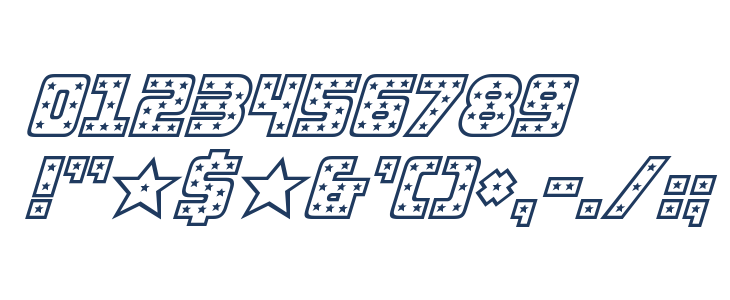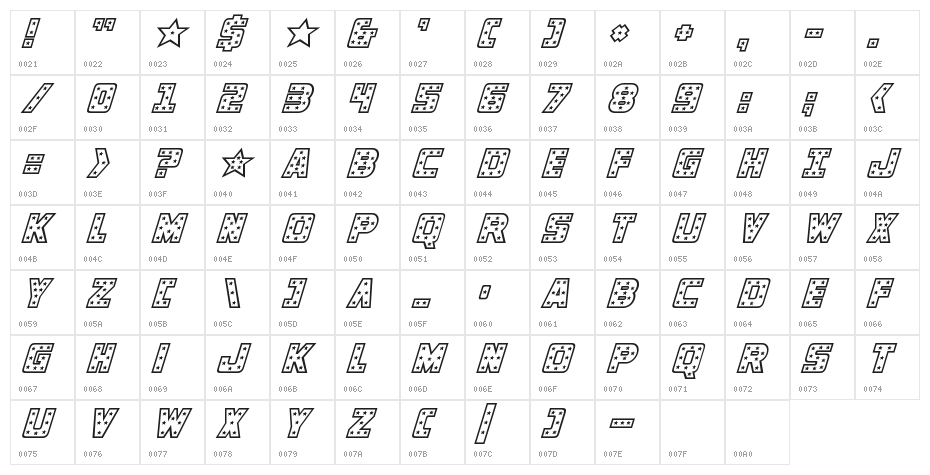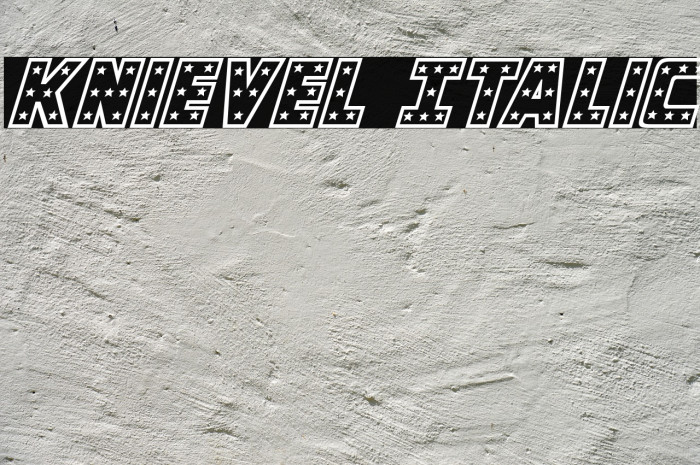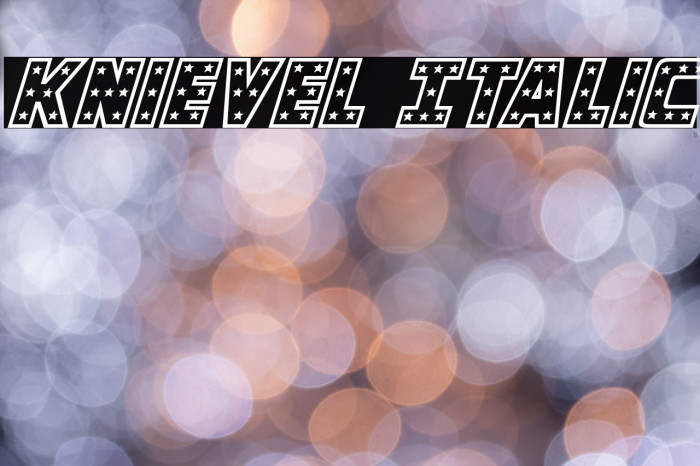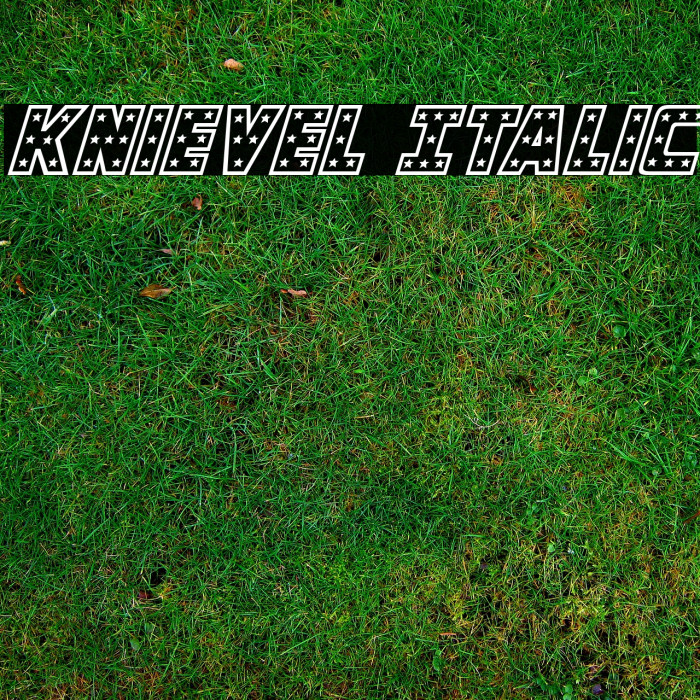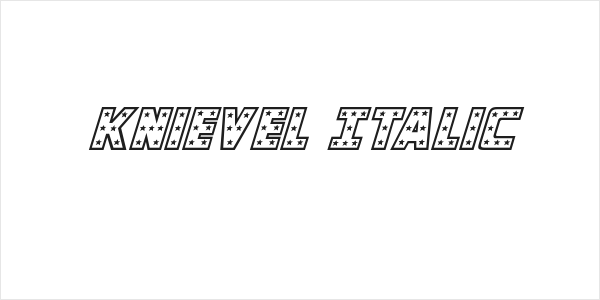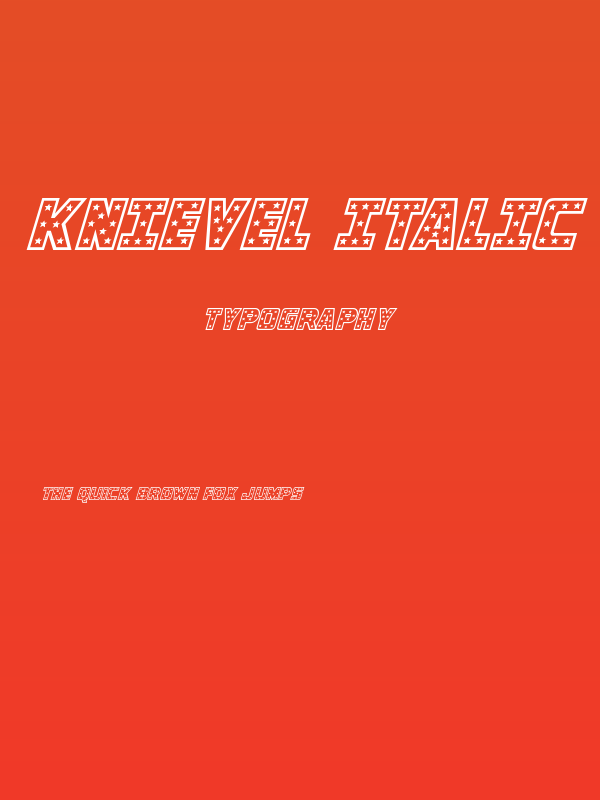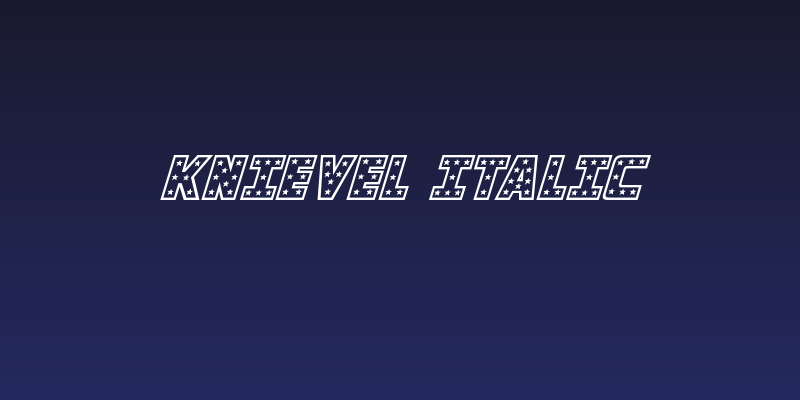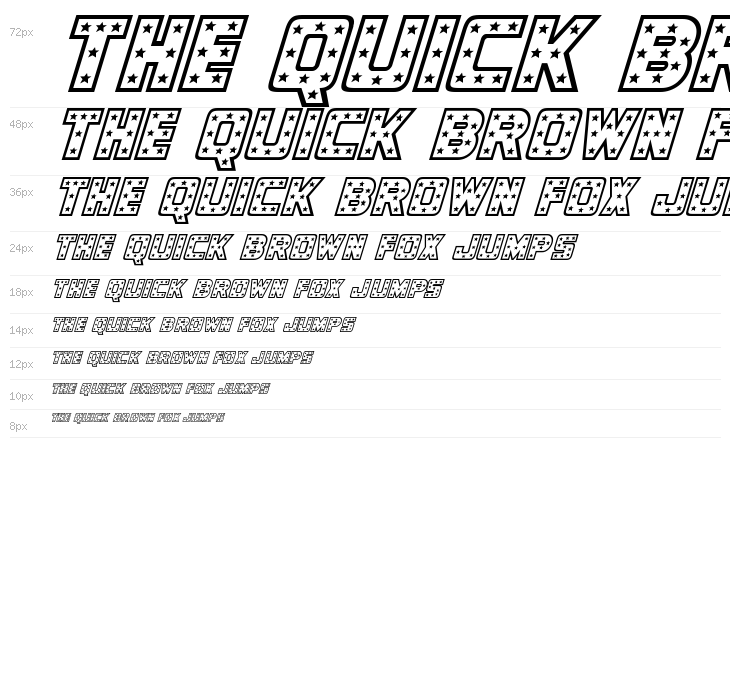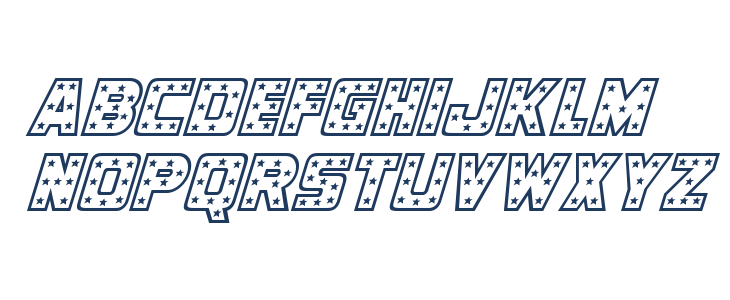
Knievel Italic Font
Knievel Italic Description
This font features a bold, italicized style with a unique decorative pattern of stars filling each character. The letters are outlined, giving them a distinct, eye-catching appearance. The design is playful and dynamic, making it suitable for projects that require a fun and energetic vibe. The star pattern adds a whimsical touch, while the italic slant provides a sense of motion and excitement. The font maintains consistent spacing and alignment, ensuring readability despite its decorative elements.
| Proposed Projects | Ideal for event posters, children's book covers, party invitations, or any project needing a lively and playful typeface. |